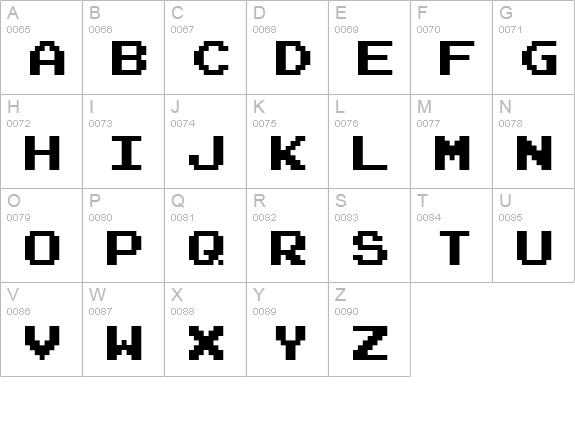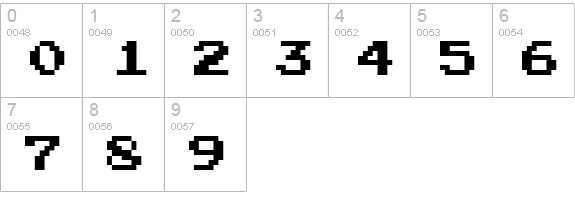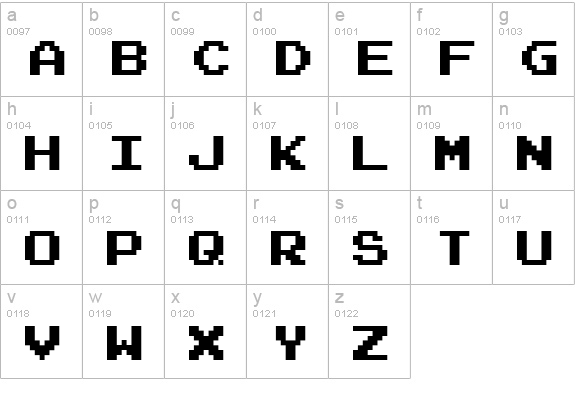
Arcade Normal is the standard, neutral variant in the Arcade typeface family \xE2\x80\x94 well suited to general body text, paragraphs, and standard typographic work.
Arcade Normal font is a versatile and modern typeface that exudes a sense of fun and playfulness. With its bold letterforms and clean lines, this font is perfect for capturing attention and making a statement in your designs. Whether you're working on a poster, logo, or website, Arcade Normal font will bring a touch of retro charm to your project. The best part? Arcade Normal font is completely free to download at FontsMarket.com. So go ahead and add a touch of nostalgia to your designs with this fantastic font that will surely make your creations stand out.